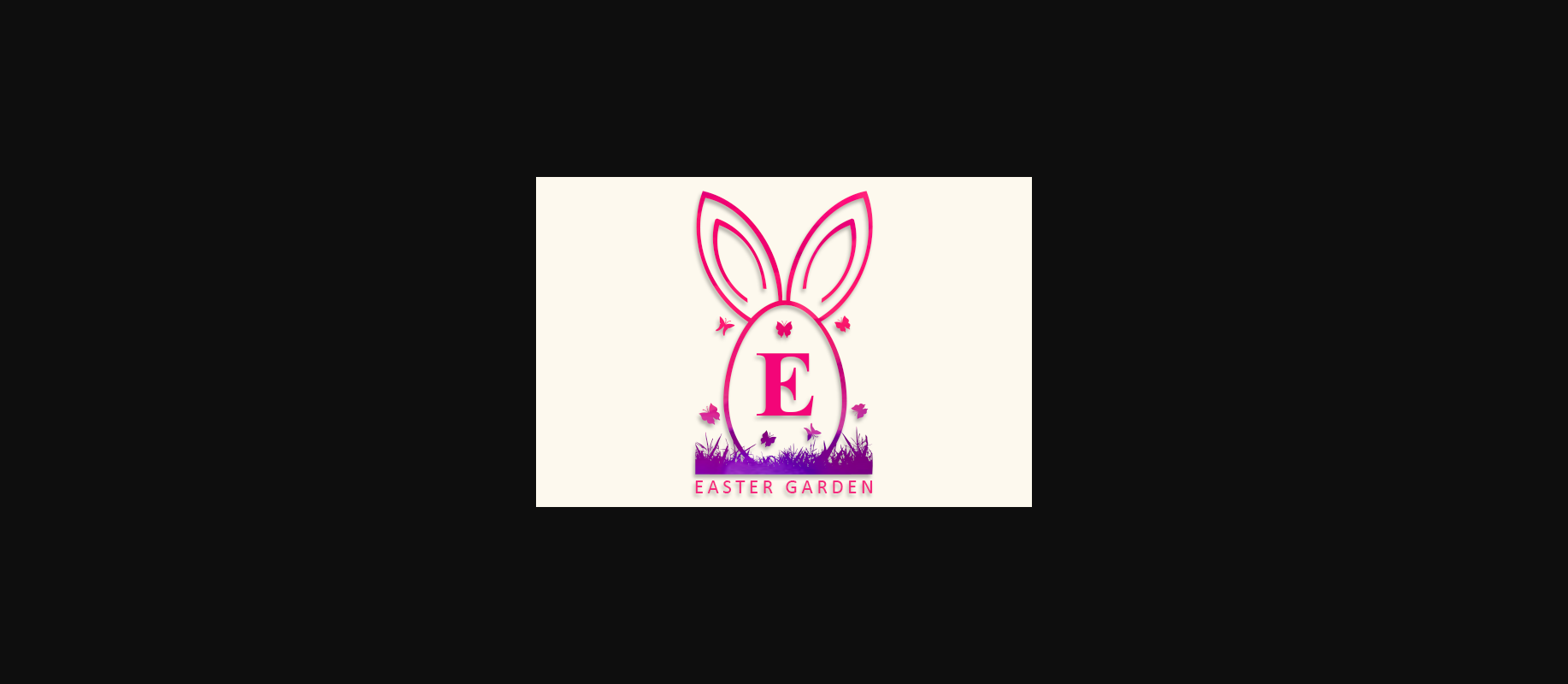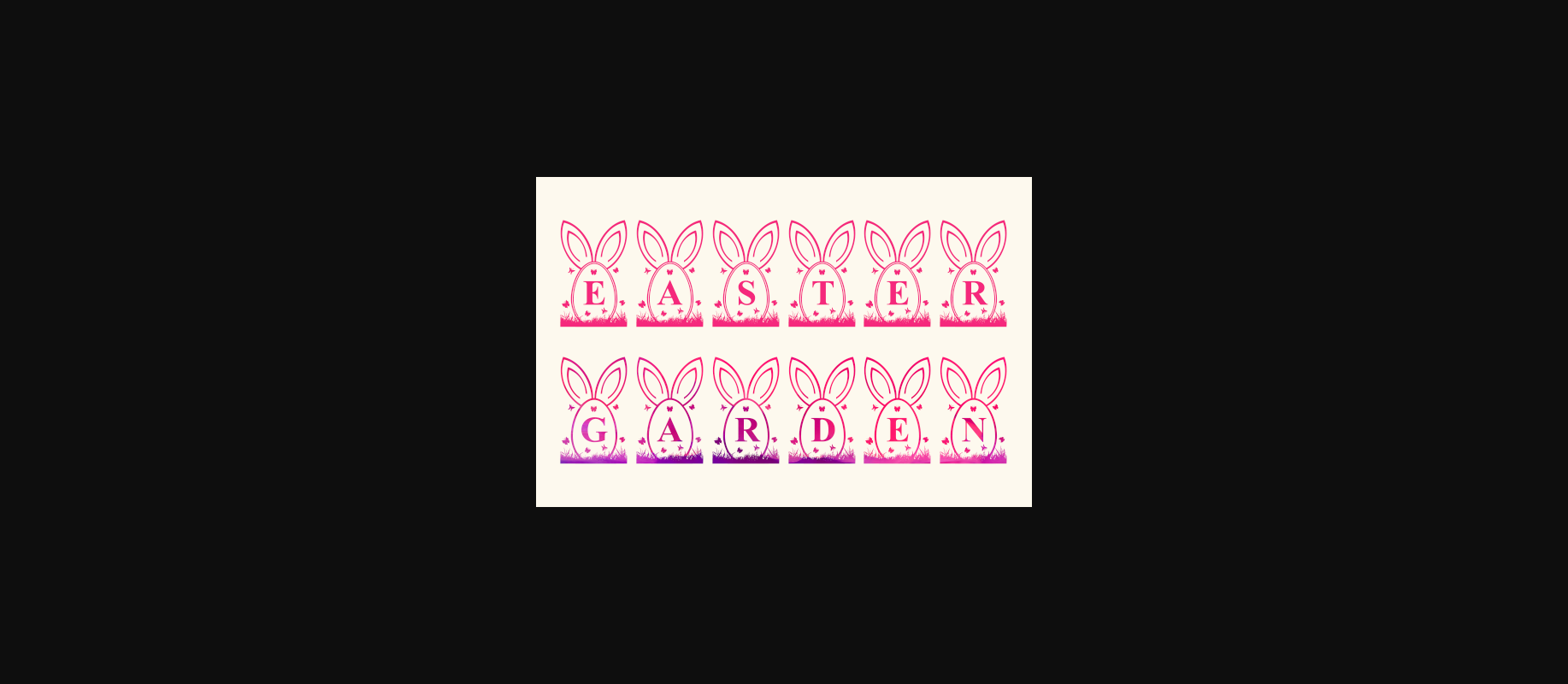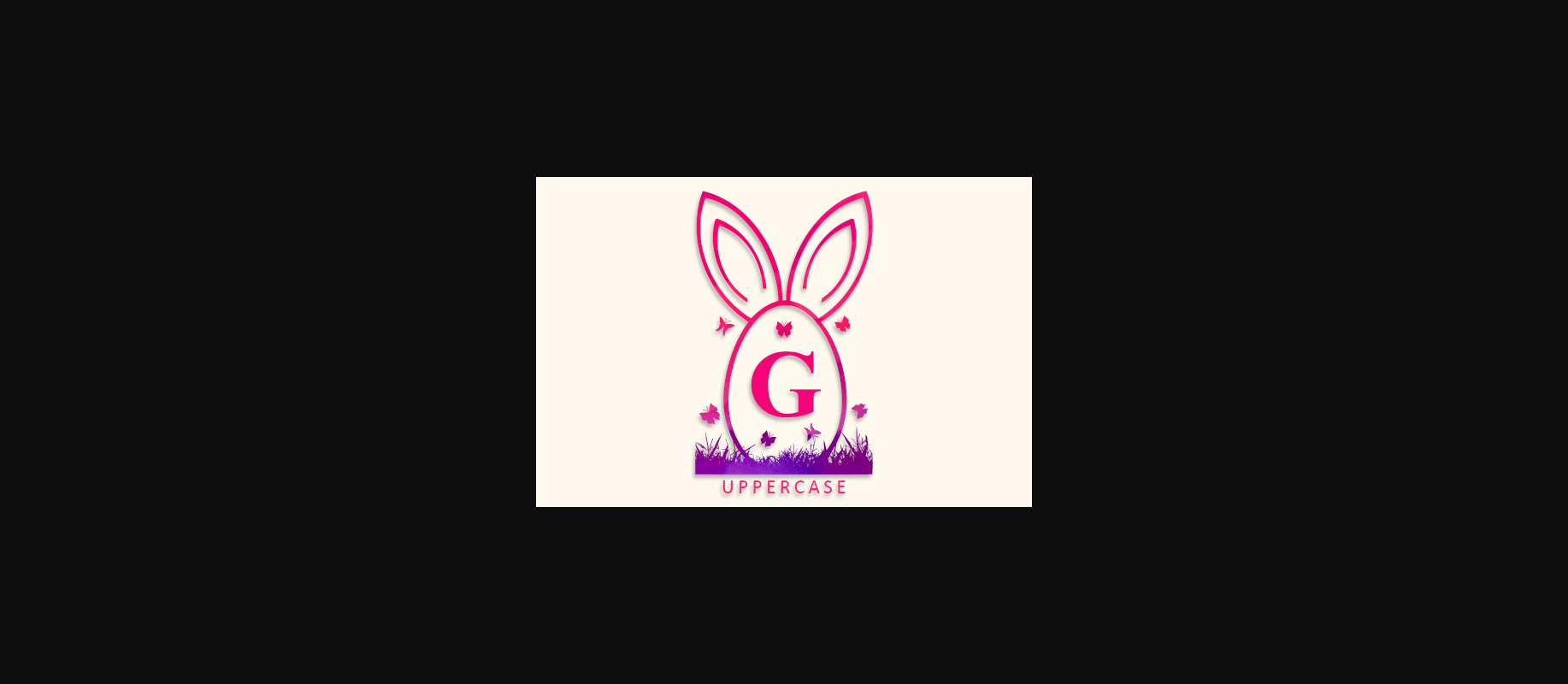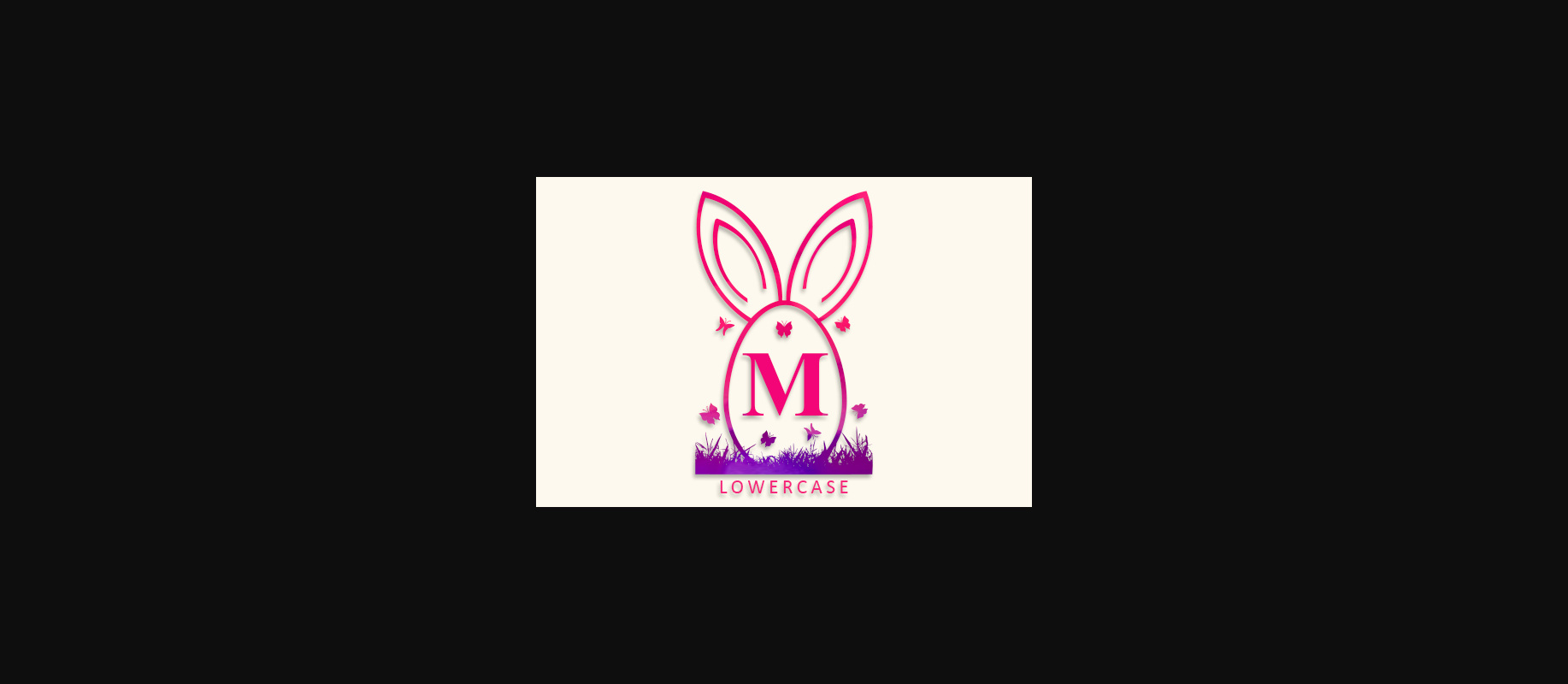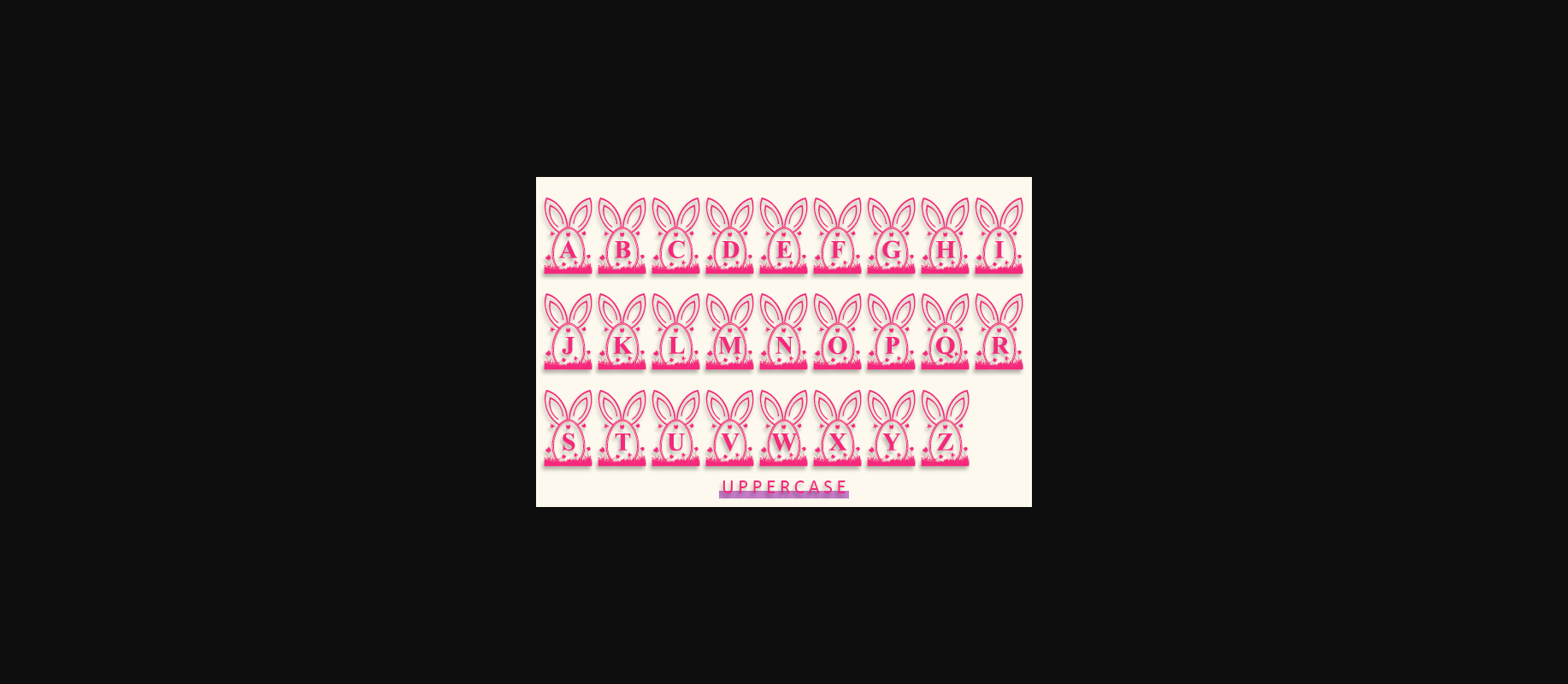
Easter Garden Font
About Easter Garden Font
Easter Garden is a sweet decorative font, ideal for your Easter related design ideas. Simple but with a strong visual effect, this font will instantly make your creation more appealing than any others.